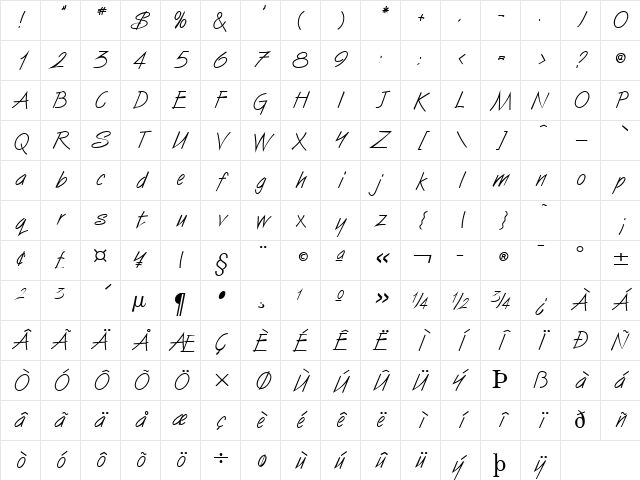
Vizier Normal Free Font
Vizier Normal
Vizier Family
Design Context for Vizier
Vizier is a composed and adaptable typeface that performs quietly and consistently across a wide range of design contexts.